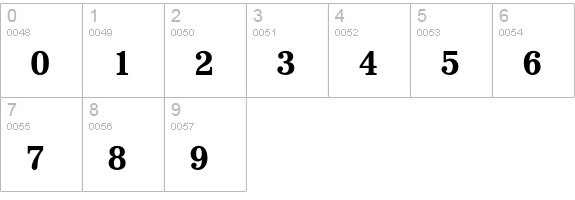
ImpressumEF-Medium Font Details
ImpressumEF-Medium is a balanced, medium-weight variant in the ImpressumEF typeface family \xE2\x80\x94 well suited to sub-headlines, navigation, and balanced editorial work.
ImpressumEF-Medium is a versatile and elegant font that will undoubtedly make a lasting impression. Its clean lines and balanced proportions make it perfect for a wide range of design projects, from logos and branding to editorial layouts and web designs. This font exudes professionalism and sophistication, making it an ideal choice for businesses and individuals alike who are looking to convey a sense of credibility and class. Its medium weight strikes the perfect balance between boldness and subtlety, allowing it to seamlessly blend into any design while still commanding attention. What sets ImpressumEF-Medium apart is its availability as a free download on FontsMarket.com. Yes, you heard it right - this exceptional font is freely accessible to everyone, ensuring that creativity knows no bounds. Whether you're a seasoned designer or a novice exploring the world of typography, ImpressumEF-Medium grants you the freedom to experiment and create without any limitations. With its extensive character set, ImpressumEF-Medium supports a wide range of languages, making it a globally inclusive font that can be used in various contexts. Its legibility ensures that your message will be effortlessly communicated, no matter the medium or platform. ImpressumEF-Medium is a font that combines timeless elegance with modern versatility. Its sleek and professional appearance, coupled with its free availability on FontsMarket.com, makes it an irresistible choice for designers seeking to elevate their creations. Download ImpressumEF-Medium today and let your creativity soar to new heights.